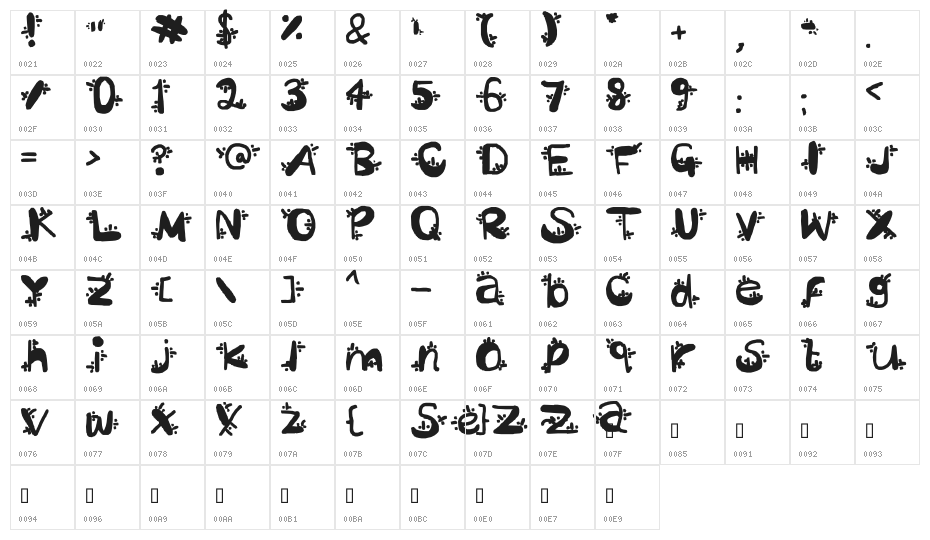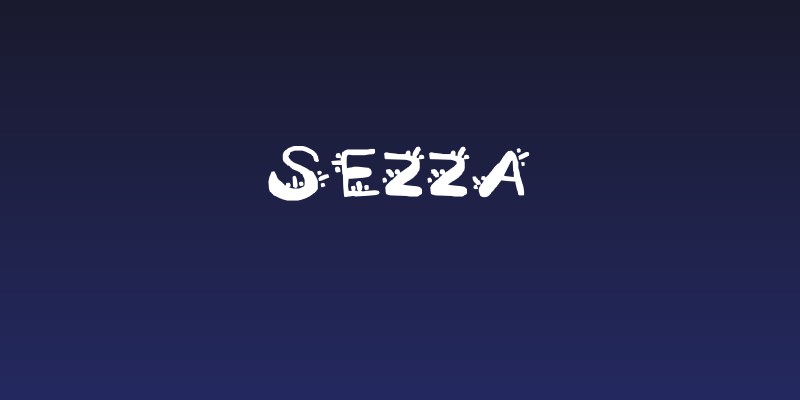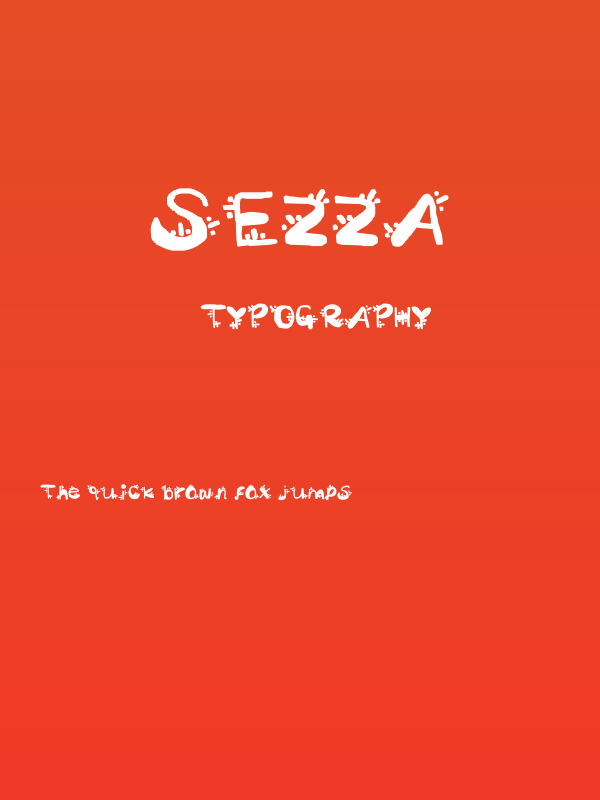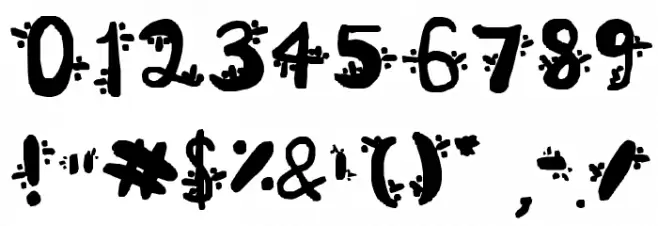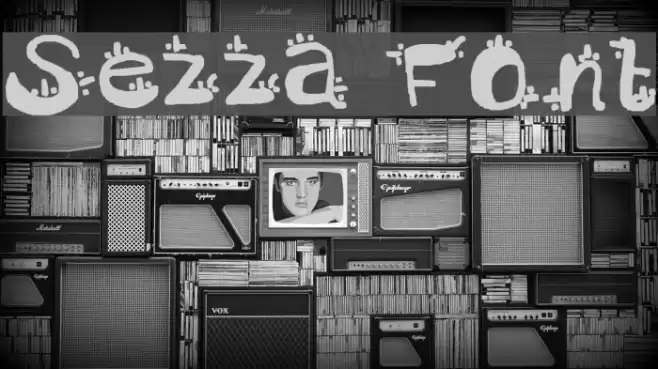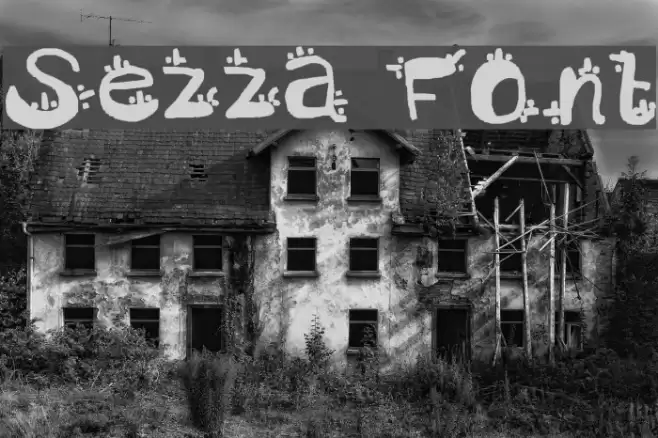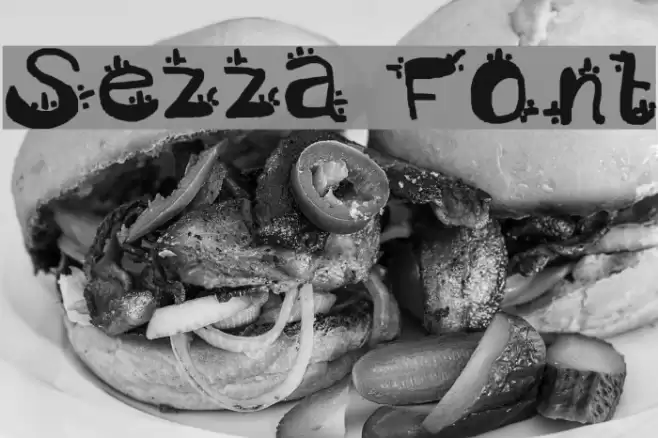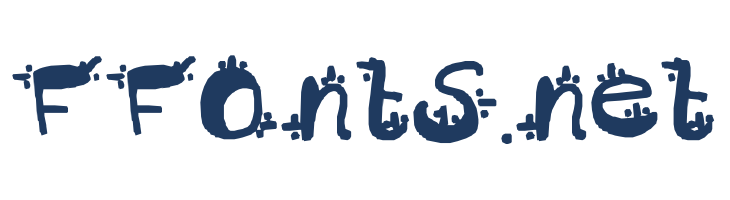
Sezza Font
Sezza Description
This font features a playful and decorative style with unique embellishments resembling small paw prints or floral motifs integrated into each character. The letters are bold and rounded, giving them a friendly and approachable appearance. The uppercase and lowercase letters maintain a consistent style, with the decorative elements adding a whimsical touch. Numbers and special characters follow the same design, ensuring uniformity across the font. The overall look is eye-catching and suitable for creative projects that require a fun and engaging typeface.